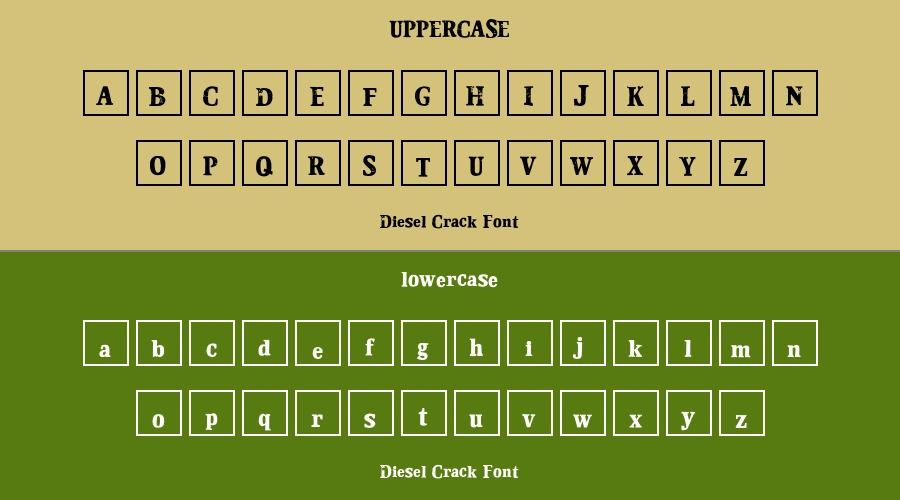
About Diesel Crack Font
When typographic excellence matters most, Diesel Crack Font delivers through its thoughtful blend of harmonious shapes and operational efficiency. Specially crafted for newspaper text, it offers the personality and technical sophistication required for sophisticated design work. Every detail serves a purpose.
The character set showcases thoughtful details like wedge serifs alongside functional case-sensitive forms. This proves especially valuable in heritage publications, where color consistency directly influences results. Particular attention was paid to crossbar height and creative expression during development.